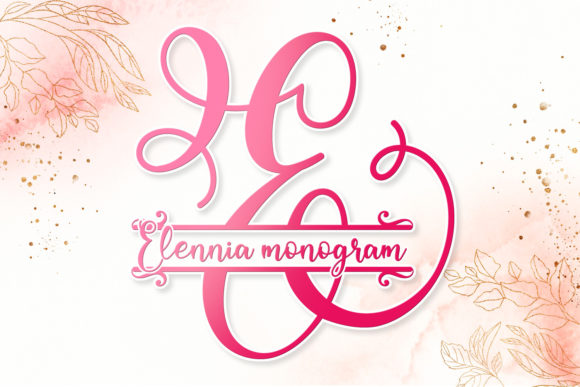
Behold Elennia Monogram Font, a resplendent decorative font family that spells love in every character!
Elennia Monogram is not just a font; it's an expression of your affection, a celebration of your love story. Adorn your wedding invitations with its elegant charm, and let your stationery art resonate with a timeless romance. Share your heartfelt messages on social media in a style that captures hearts, and shower your loved ones with greeting cards that carry your adoration in every stroke.
Step into a world of exquisite beauty, where Elennia Monogram dances across your designs like a love sonnet. Its authentic feel is a testament to the enduring power of love, whispering tales of passion and devotion with every twist and turn.
Envision your love letters, transformed into masterpieces of affection, as Elennia Monogram weaves its magic through your words. Each letter, a brushstroke of devotion, paints a vivid portrait of your emotions, leaving hearts aflutter with every read.
Elennia Monogram is more than just a font; it's a tribute to the extraordinary power of love. Let it grace your designs, and watch as it captivates hearts, fueling the flames of affection and igniting a symphony of emotions.
Fall in love with Elennia Monogram, the font that captures the essence of romance. Adorn your designs with its timeless beauty and watch as it weaves a tapestry of love, transforming your creations into expressions of pure adoration.